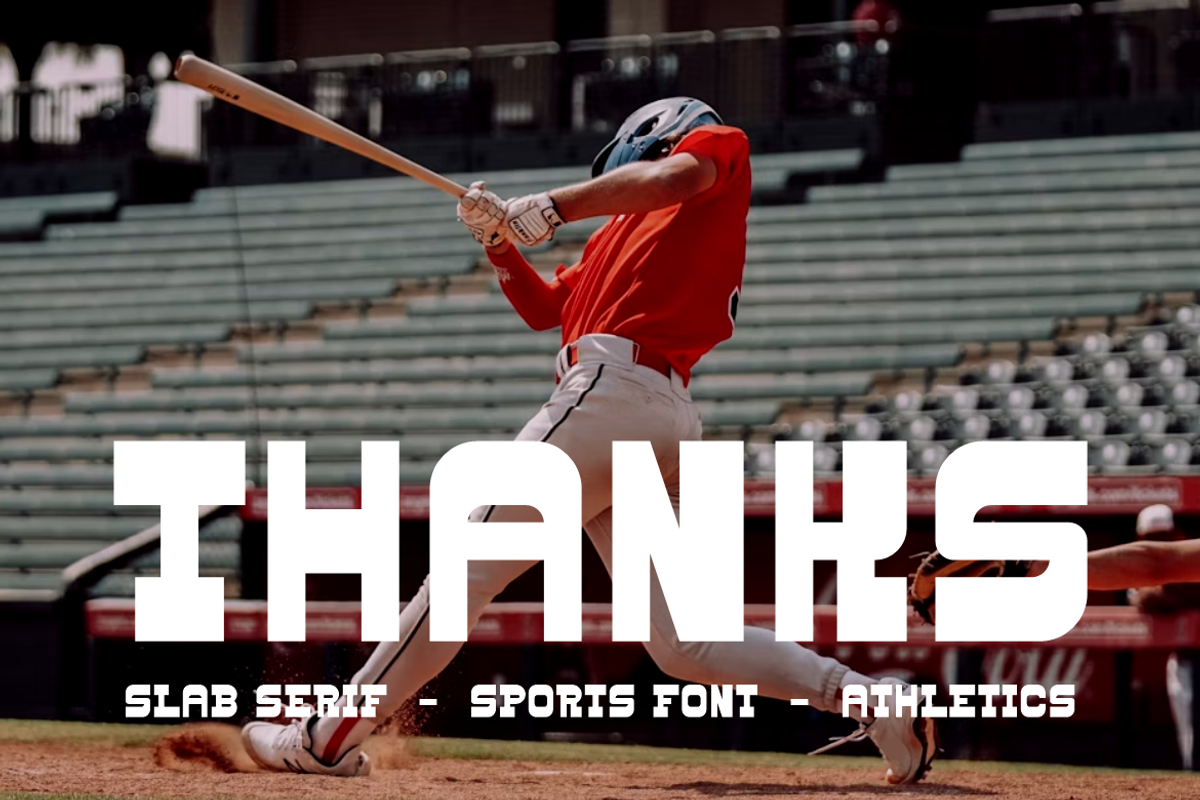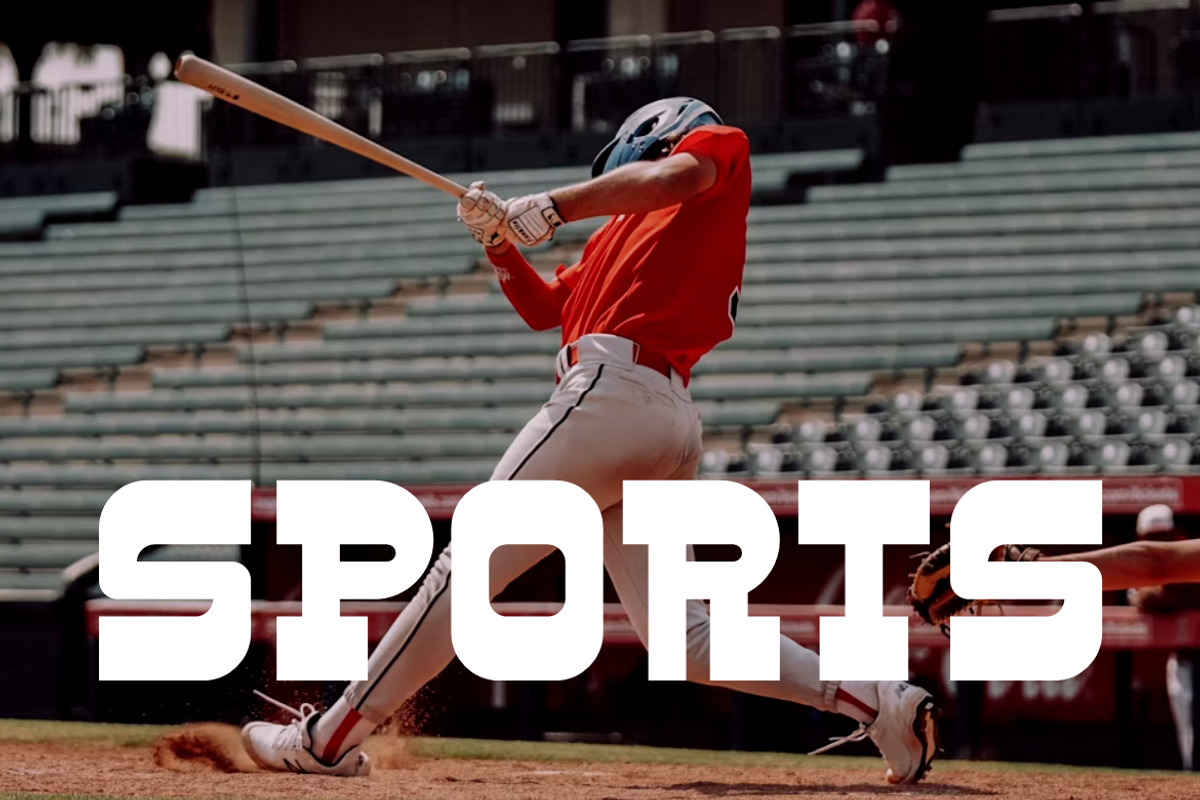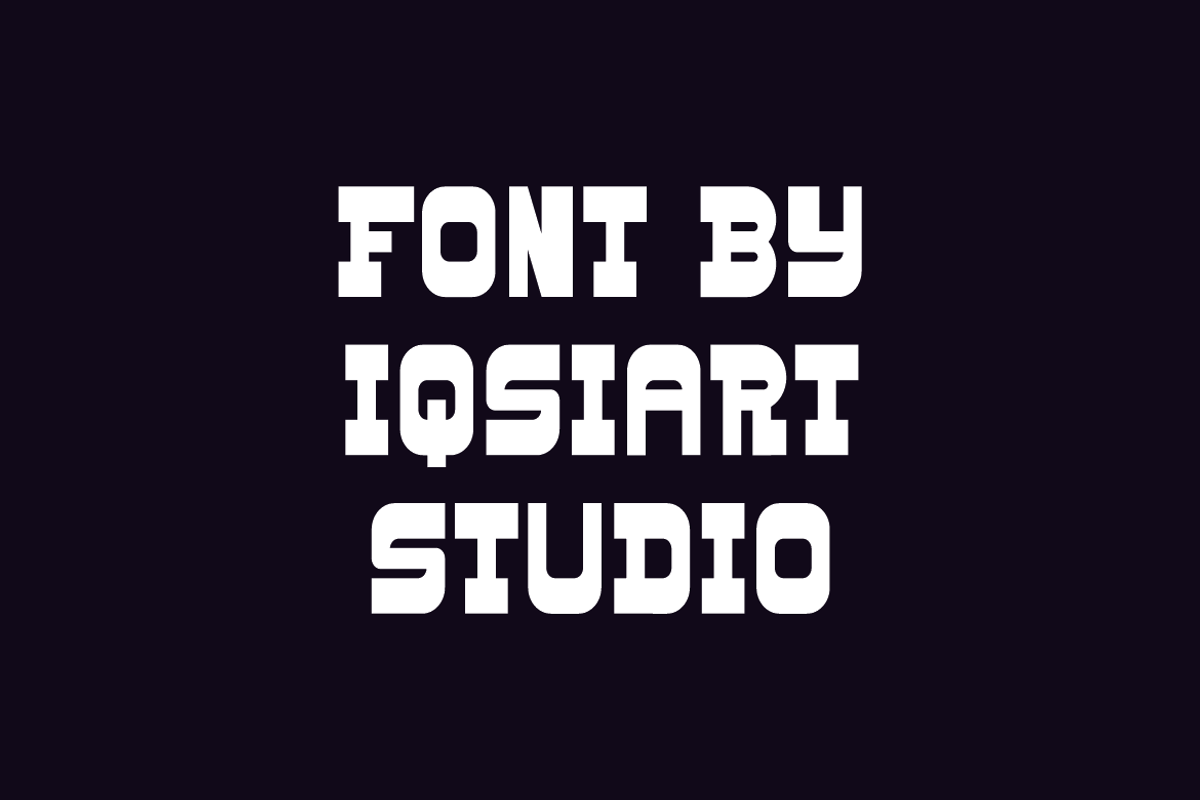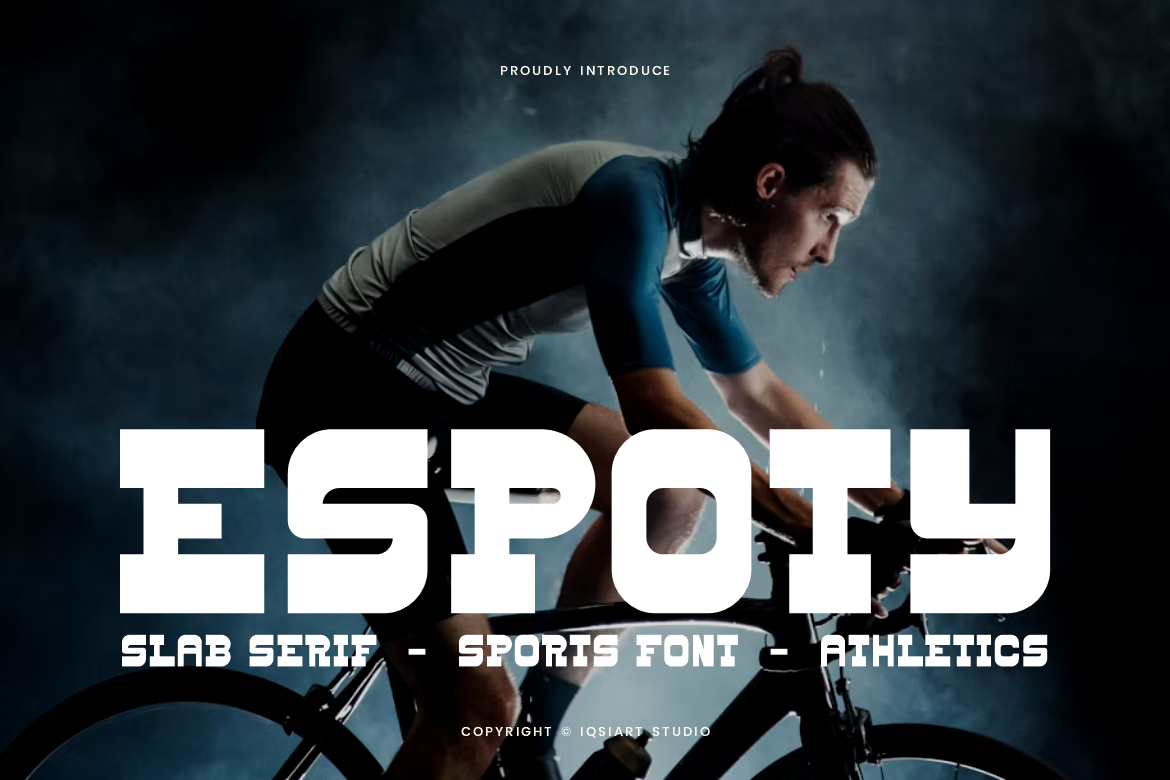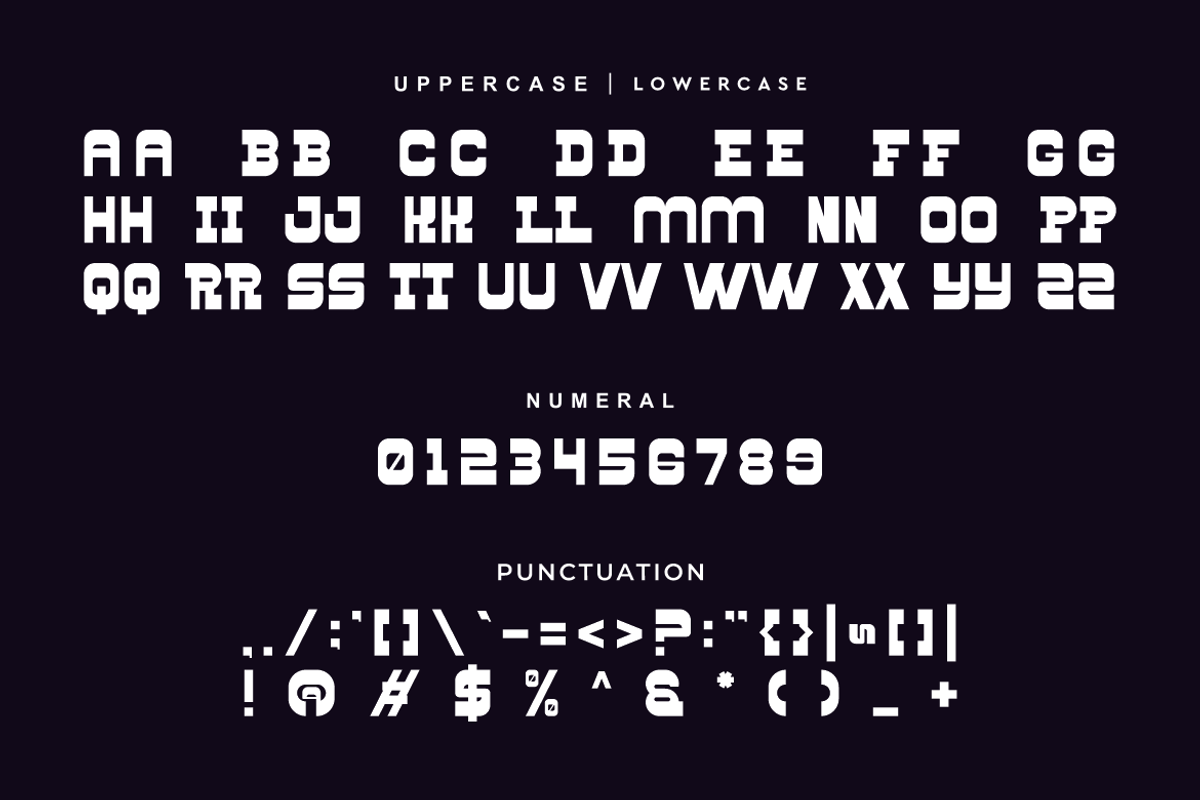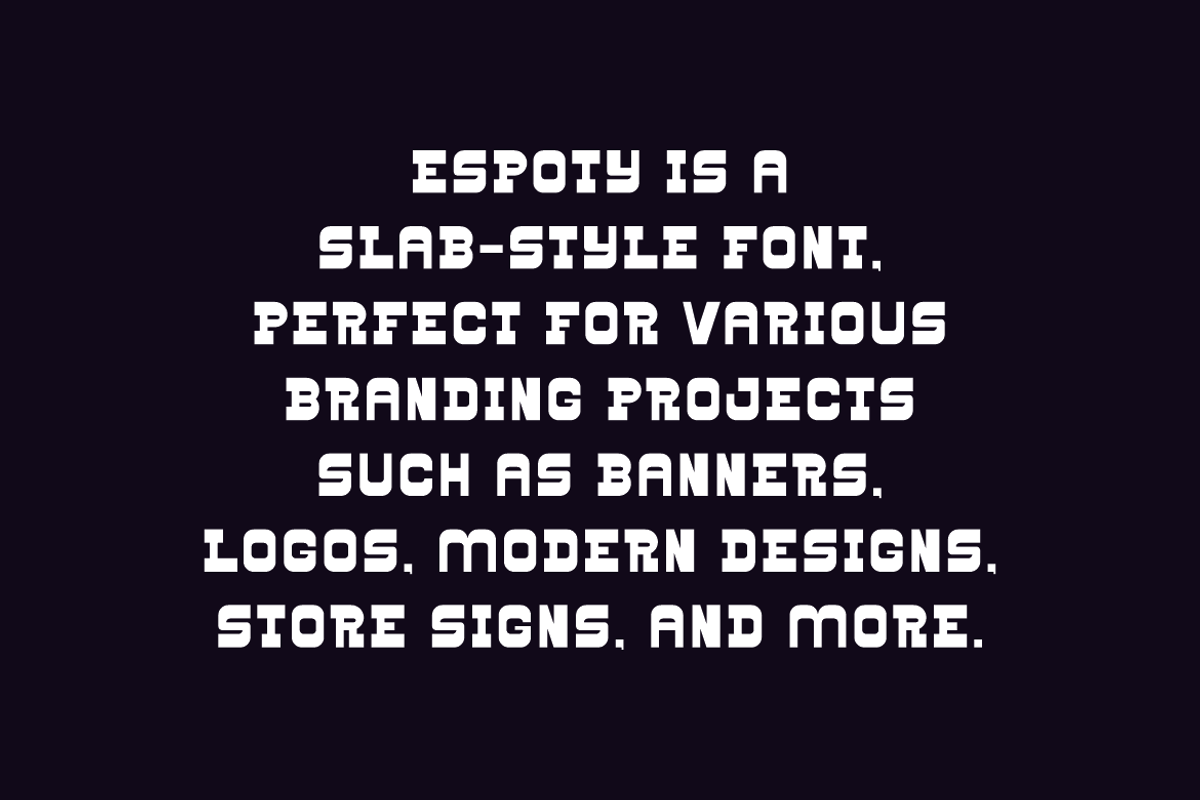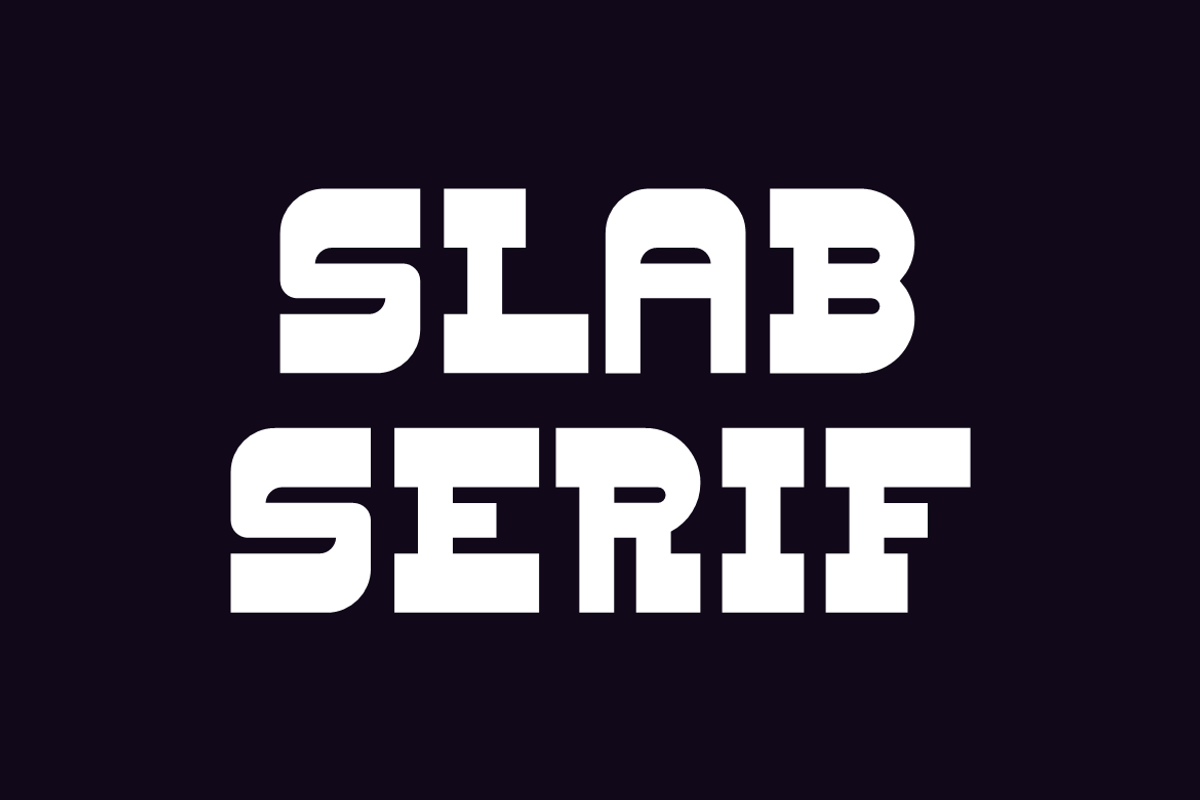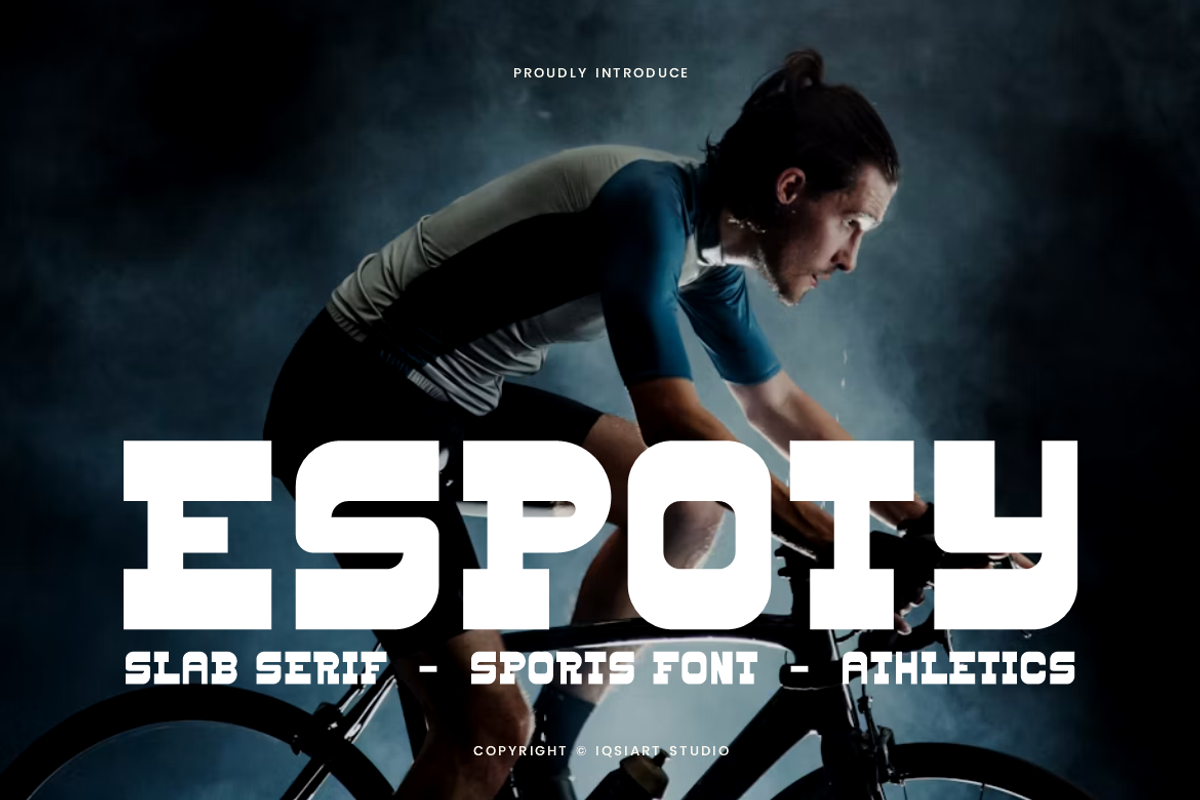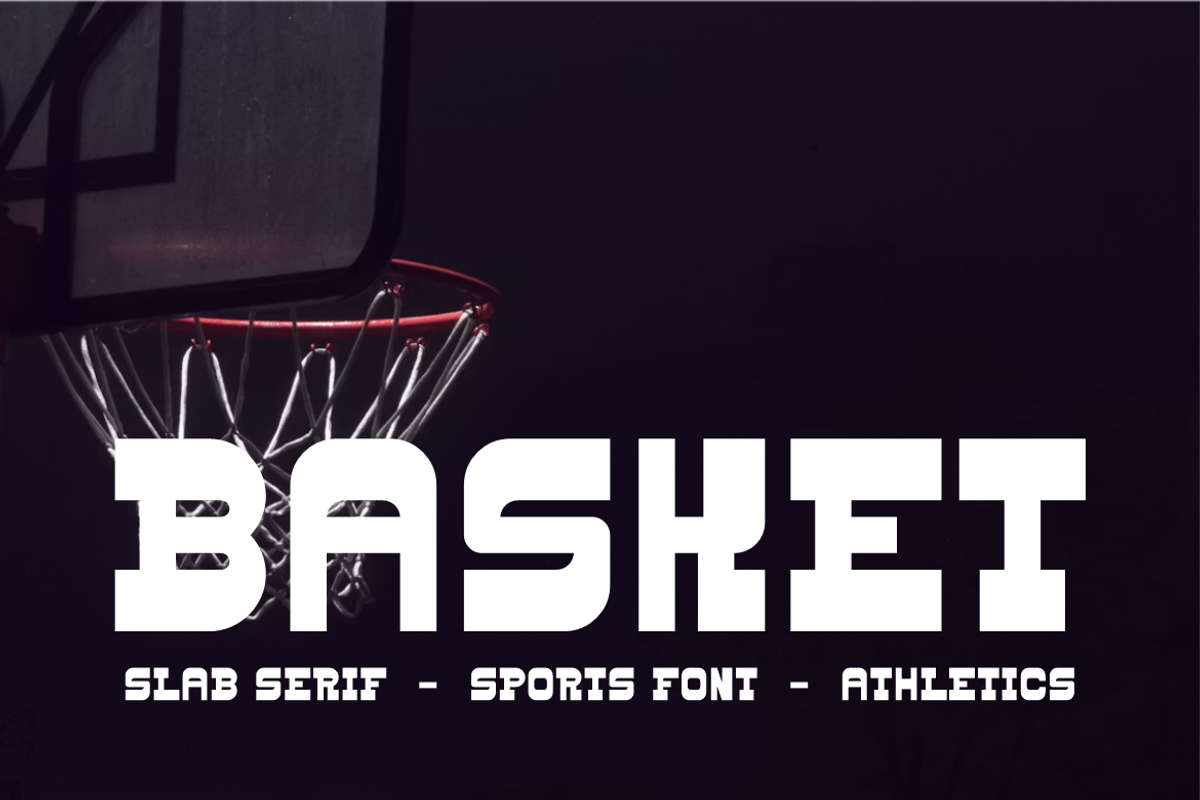
Espoty - Sports Slab Serif Font
Espoty Font is a slab serif and authentic display typeface
that suits a variety of design needs. We offer a wide range of themes